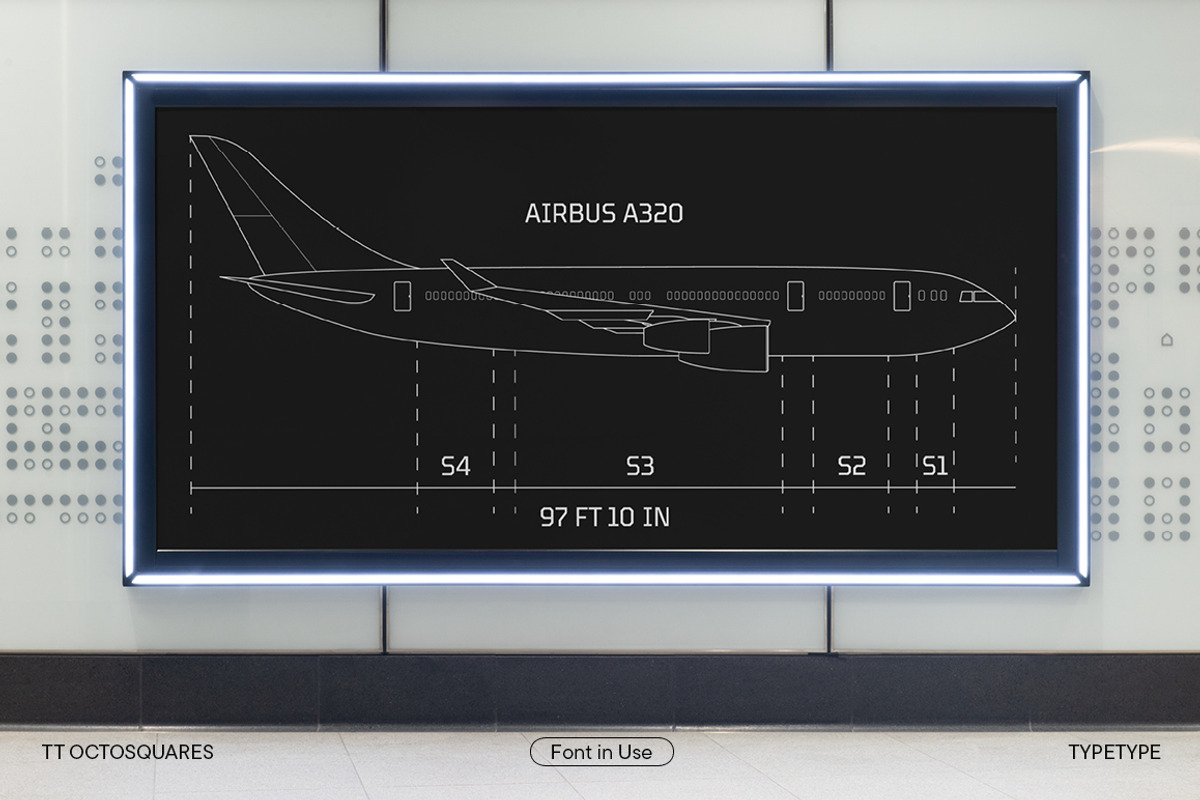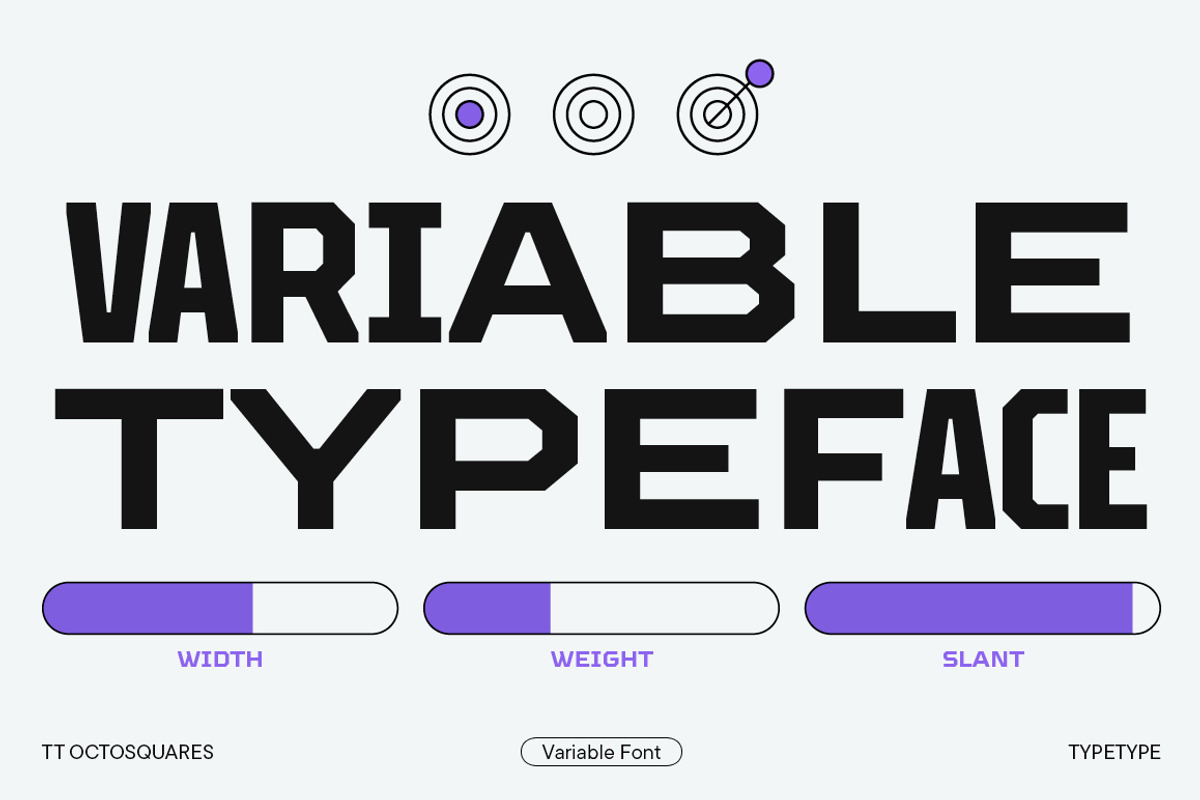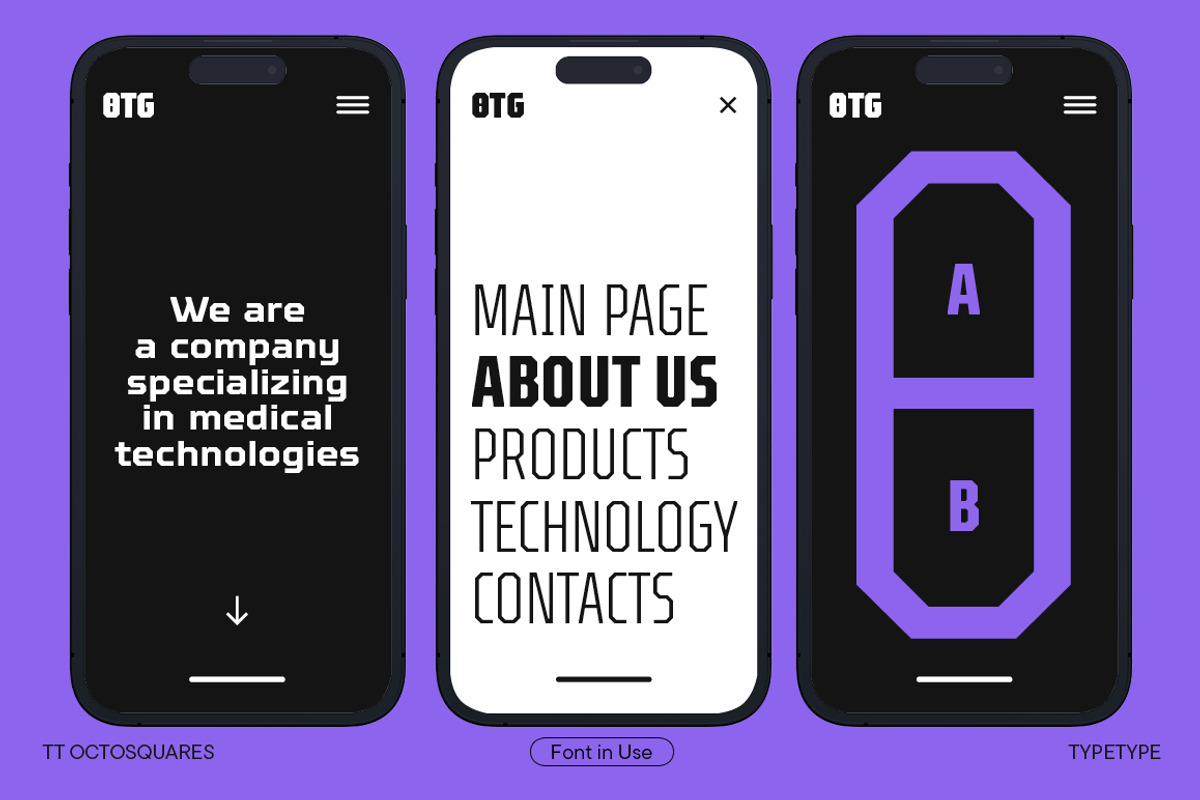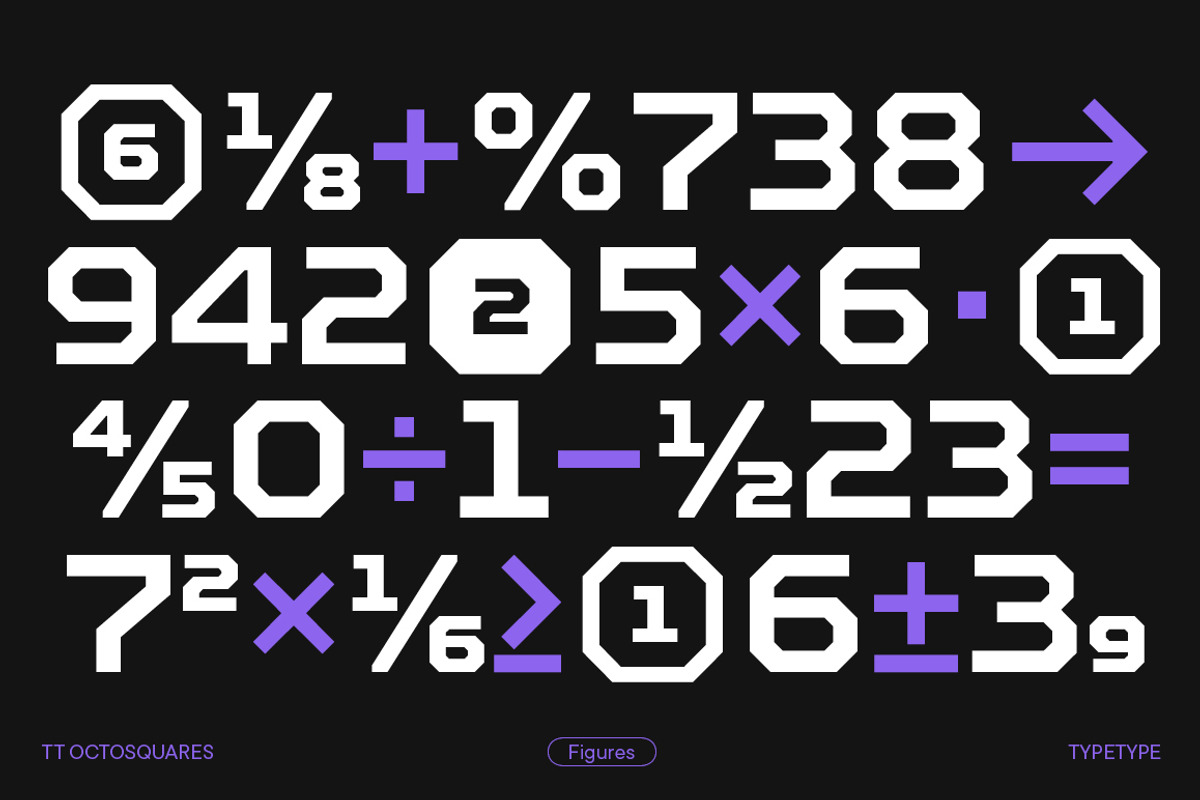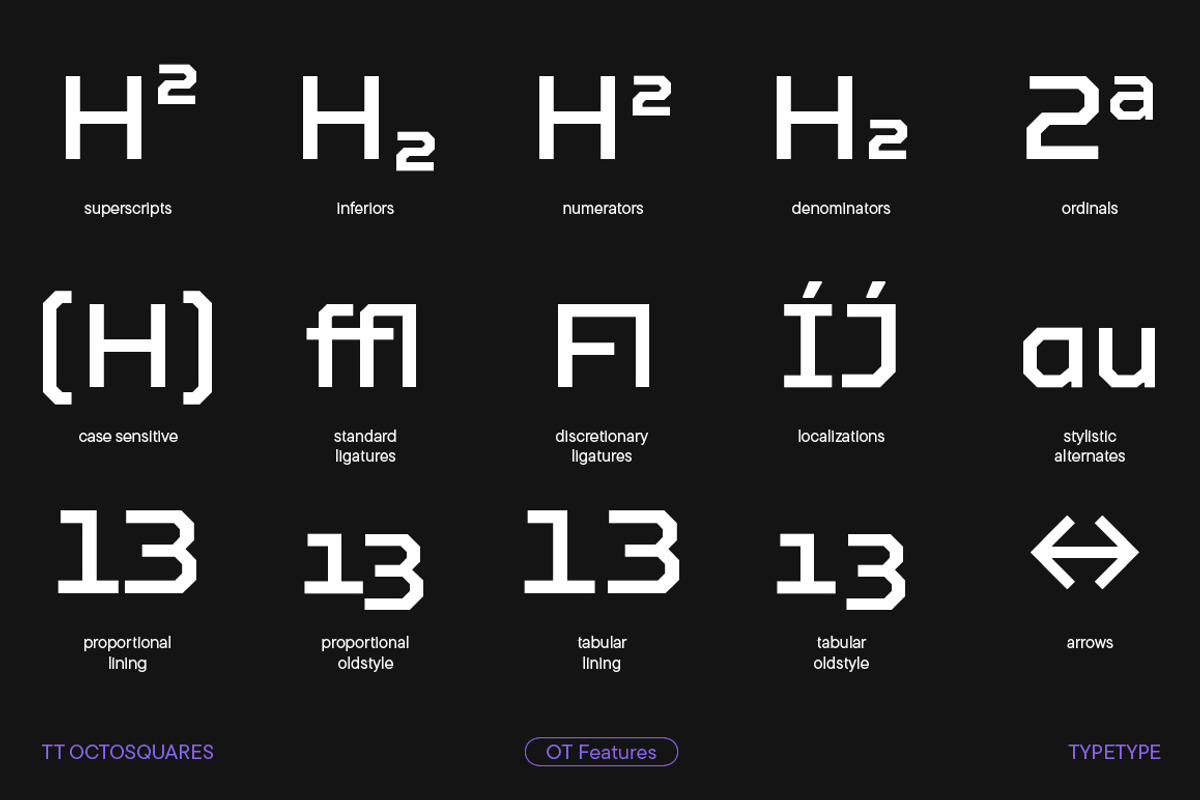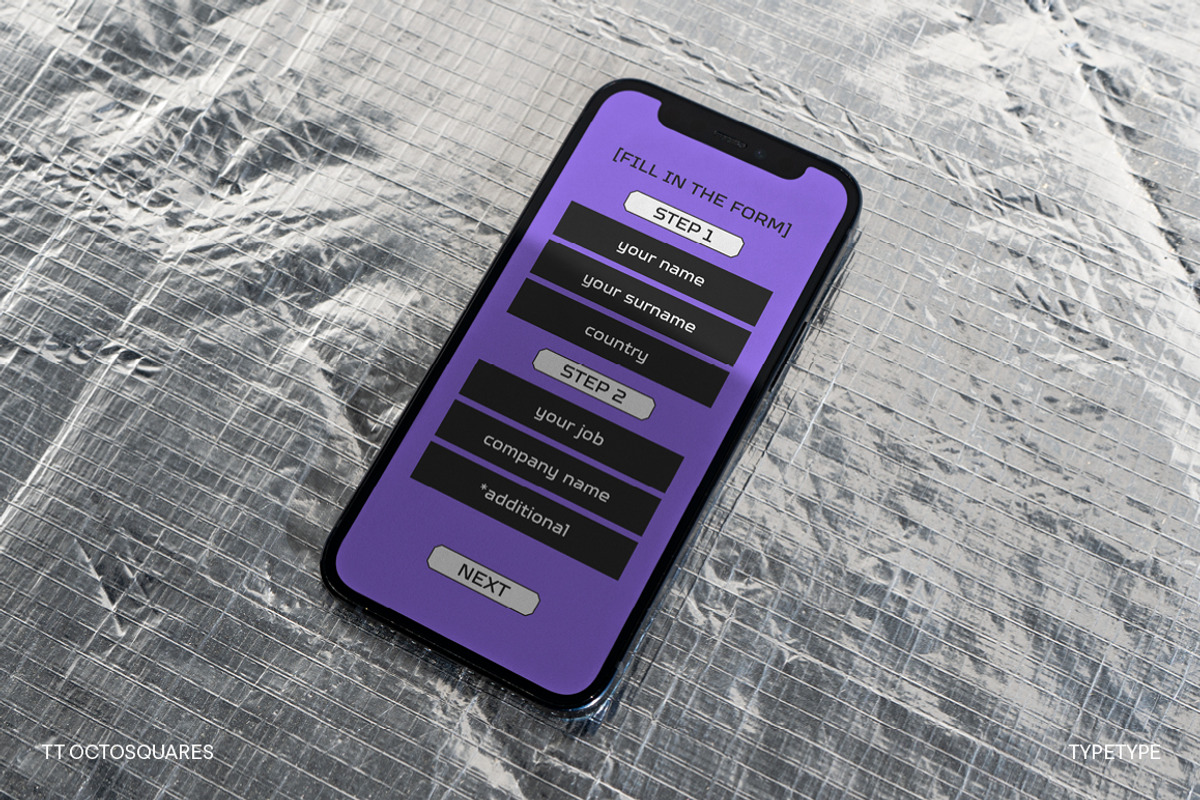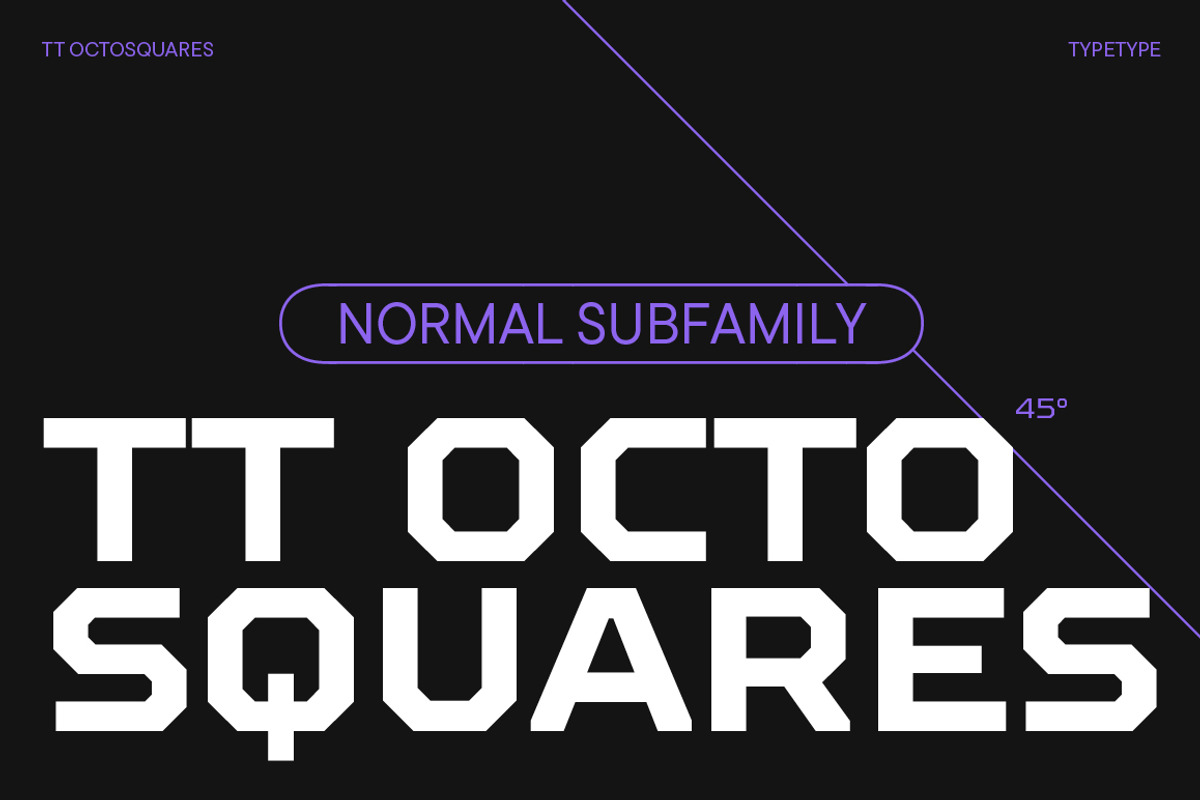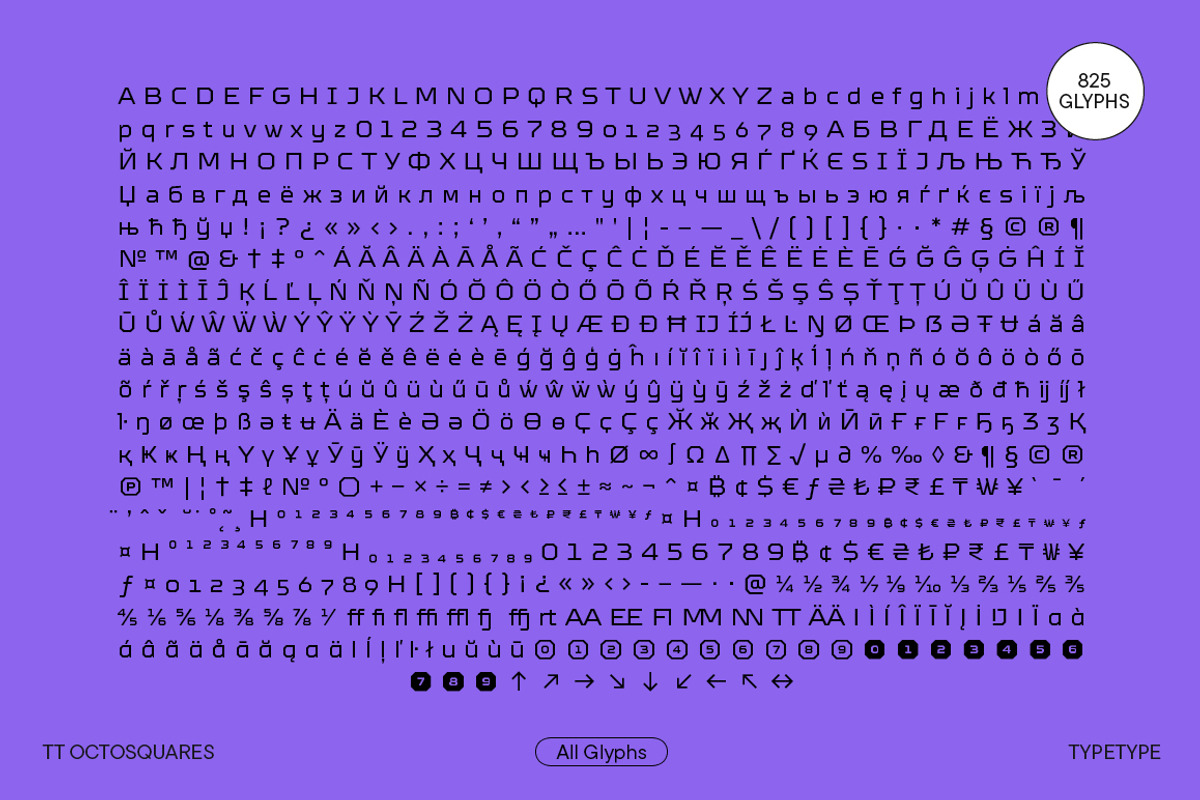
TT Octosquares Normal
TT Octosquares is a fresh, revised, expanded, and significantly improved version of our first commercial typeface TT Squares and its narrow version TT Squares Condensed. With all our love for the original font family, it felt there was a lack of functionality, character composition, features, and design freshness, which prompted us to the idea of a complete restart. Now TT Octosquares can be safely called a superfamily.
- TT Octosquares—4 widths, 72 faces, 18 in each width (uprights & italics):
- Normal
- Compressed
- Condensed
- Expanded
- 825 glyphs for each typefaces
- Supports 210+ languages (incl. Cyrillic)*
- OpenType features, including Ligatures, Alternate characters and 12 Stylistic Sets**
In addition to working on the contours themselves and their design, we completely revised the composition of the typeface. First, we added two completely new widths: Compressed and Expanded. Secondly, we increased the number of weights in each of the subfamilies—while in the old versions there were 5 weights, now in each of the subfamilies there are 9 weights. At the stage of working with the contours of characters, we revised the roundings, changed the forms of shoulder and stem crossings, added noticeable shelves at the letters, removed the sharpness from the triangular characters and cut off all sharp endings.
Due to the increased language support and the appearance of a bunch of useful OpenType features, the number of glyphs in the typeface has increased from 480 to 825 in each style. Now you can use stylistic alternates, standard and discretionary ligatures, or use old-style figures, numbers in circles and even slashed zeros in your design.